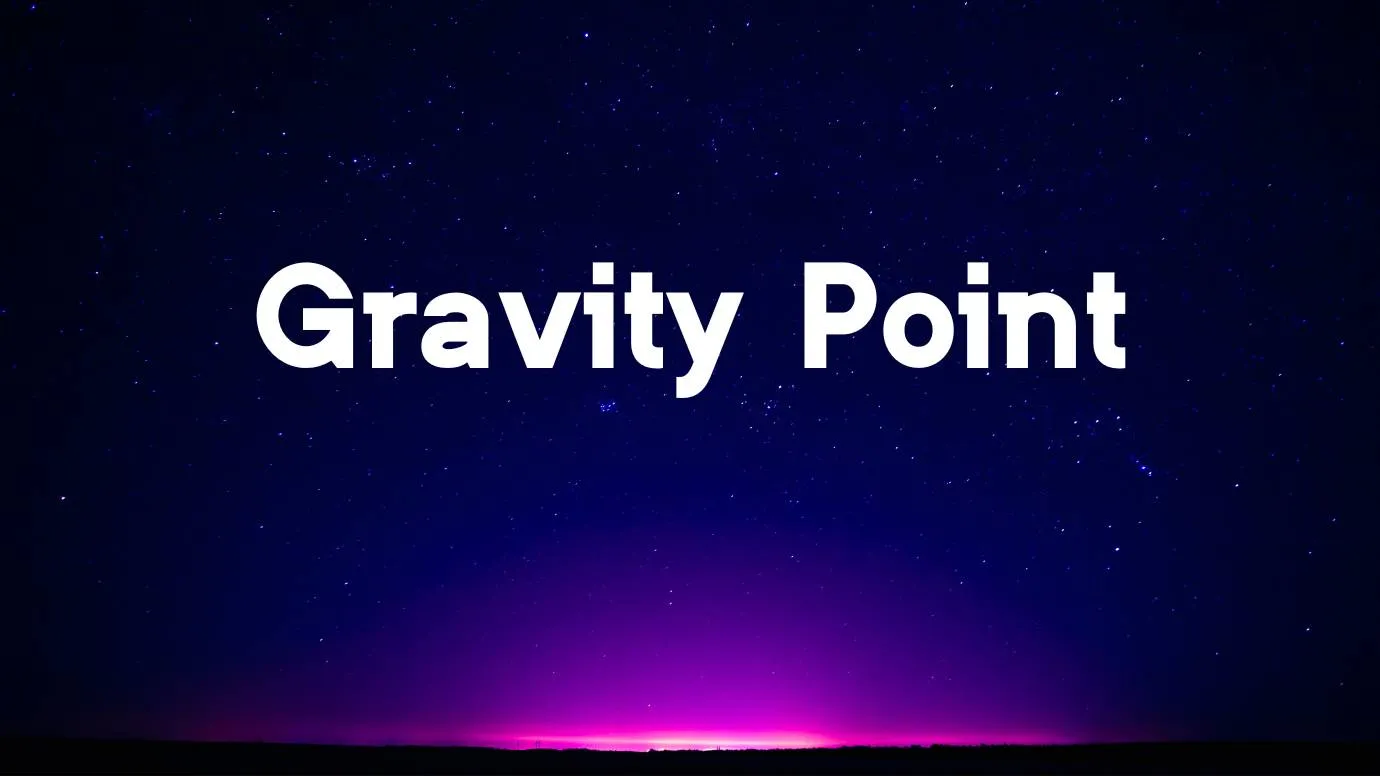
Gravity Points Font Family is a very attractive decorative font and you can make so many amazing personal and commercial projects by using this font. It was designed by 177 Studios.
The look of this font is very wide, neat, and clean. It is specially used for making projects related to sports. As this font supports file formats TTF and OTF you can download it on all devices for use such as Android, PC, MAC, and Linux.